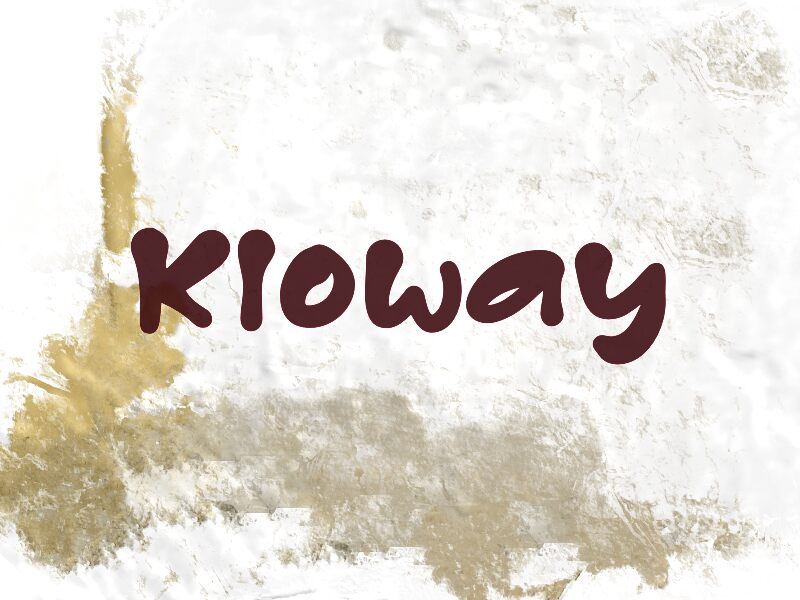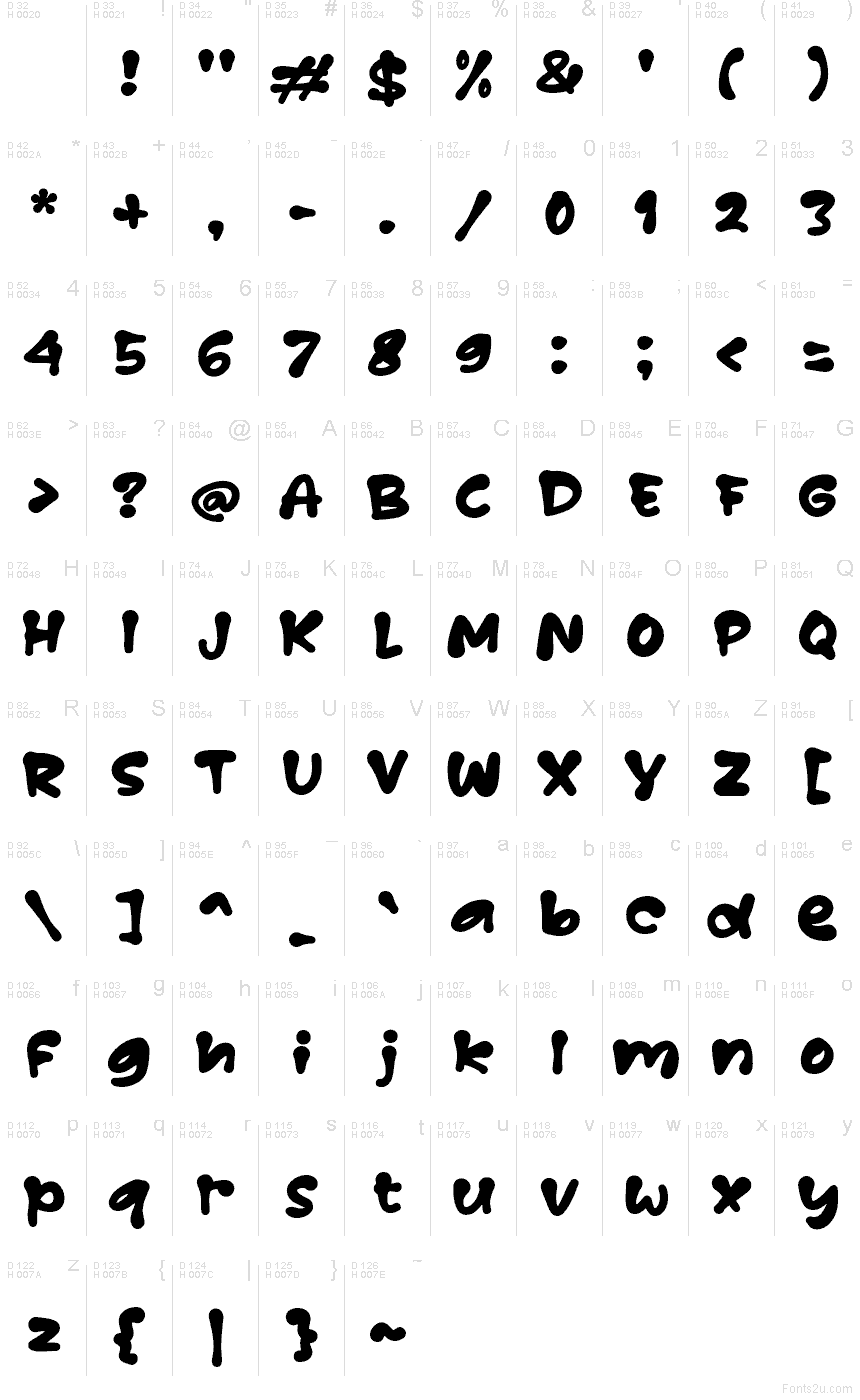
Kloway
Kloway font by wep is a free cartoon display typeface that looks like it’s been drawn with a fat, inky marker. The letters wobble and bulge in a friendly way, with soft curves and chunky strokes that feel playful instead of sloppy. It has a loose, hand-lettered rhythm that makes every word look like it’s bouncing across the page, perfect when you want designs to feel fun, loud, and a bit mischievous.
Using Kloway in bold sizes lets this free font shine on kids’ book covers, birthday invitations, snack packaging, comic titles, party flyers, and playful logos. Its thick forms hold up well on screens and print, even against busy backgrounds. For extra clarity, pair Kloway with a simple rounded sans serif for body text so the bubbly headlines stay the star of the show.